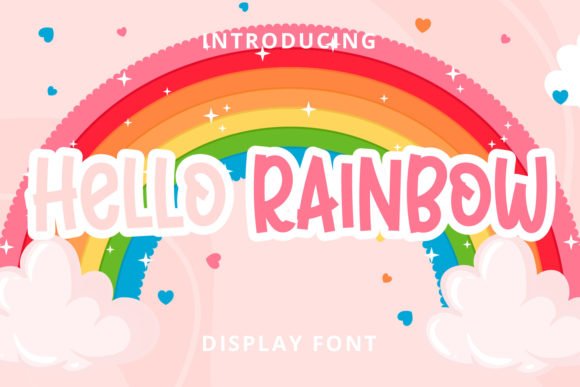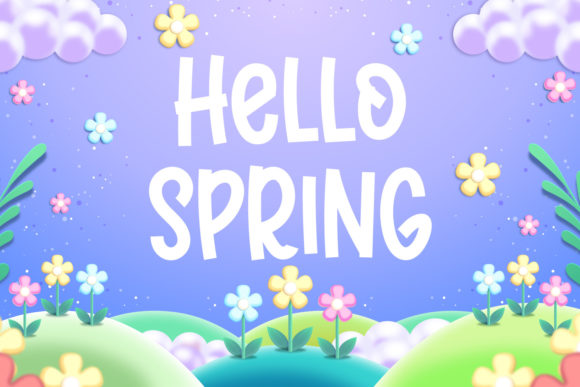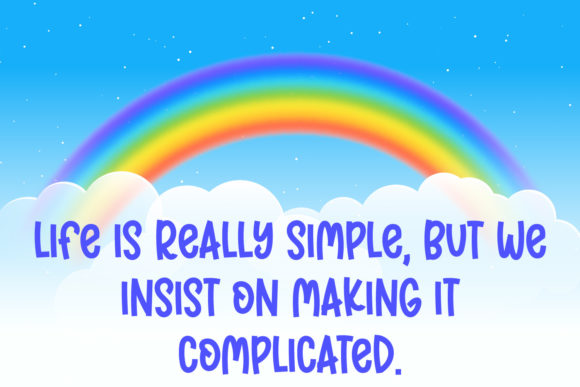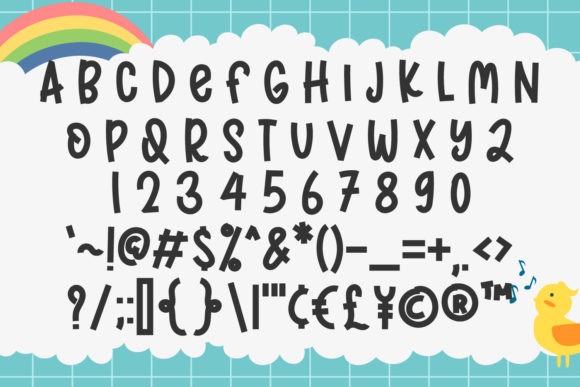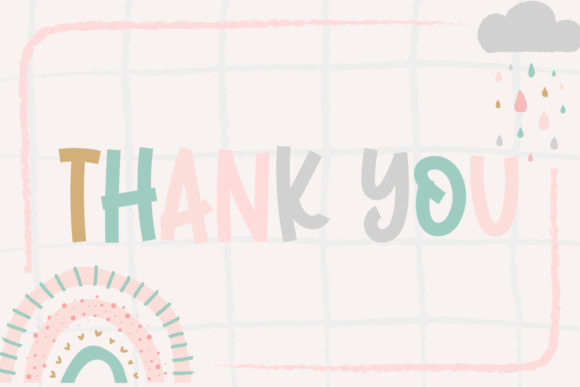
Unlocking the Magic of Hello Rainbow Font
Have you ever sat down with a blank canvas, a spark of creativity, and a dream to bring something special to life? That’s exactly what happened to many designers when they first laid eyes on the Hello Rainbow Font. This playful and cute display font has been a game-changer for creatives, adding a touch of whimsy and charm to any project.
Whether you’re crafting handmade cards, designing digital presentations, or simply want to add some personality to your social media posts, the Hello Rainbow Font has got you covered. Its versatility and wide range of applications make it a valuable asset for designers of all levels. From beginners to seasoned pros, this font has the potential to become your go-to choice for any occasion.
- Unique Characteristics: The Hello Rainbow Font is known for its vibrant, hand-drawn style and its ability to add a playful touch to designs. The font features a mix of uppercase and lowercase letters, as well as punctuation marks and numbers.
- Font Style: The font is a sans-serif script font, making it easy to read and use in a variety of contexts. Its rounded edges and smooth curves give it a friendly, approachable feel.
Hello Rainbow Font Review
When I first came across the Hello Rainbow Font, I was immediately drawn to its vibrant and playful aesthetic ✨. The font is perfect for projects that require a pop of color and a touch of whimsy. The bold and bright design is sure to grab the attention of your audience and leave a lasting impression.
- Unique and eye-catching design ✨
- Perfect for projects that require a bold and playful aesthetic
- Great for titles, headings, and other text elements where a pop of color is desired
However, there are a few limitations to consider ⚠️. The font can be overwhelming if used in large quantities, and the bright colors may not be suitable for all audiences. Additionally, the font may not be suitable for formal or professional projects where a more subdued design is preferred.
The Hello Rainbow Font is a fun and playful addition to any design project. While it may have some limitations, its unique design and vibrant colors make it a great choice for projects that require a bold and eye-catching aesthetic. Just be sure to use it judiciously and in moderation to avoid overwhelming your audience.
The Hello Rainbow Font is perfect for creating:
1. Eye-catching social media graphics.
2. Colorful wedding invitations.
3. Fun and playful branding materials.